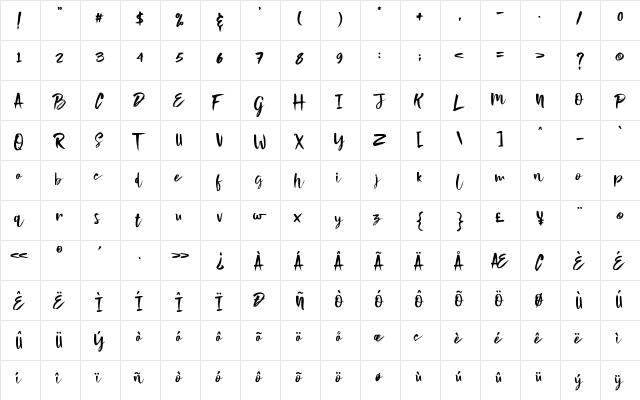
Violaceous Font Preview
Violaceous Violaceous
Violaceous Font Details
| Style | Violaceous |
| Foundry | Suandana I Pande Made |
| Designer | Suandana I Pande Made |
Design Context for Violaceous Typeface
Violaceous is a composed and adaptable typeface that performs quietly and consistently across a wide range of design contexts.